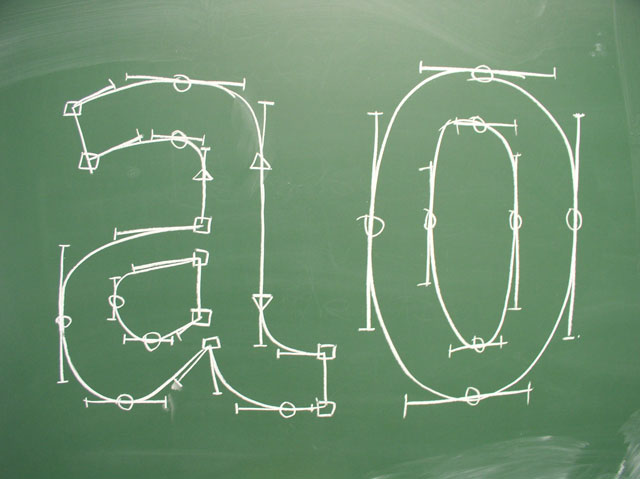
thin group and
tiny group
The thin group started to look for a proper location, and found that this morning. A weird bizar alley, which breaths the atmosphere of Jack the Ripper. Brrr. They started experimenting today using the bricks for making the type. The whole street could be 'filled' with bricks. You can read a typographic saying, if you stand on the beginning of this alley. Brake the perspective dimensions in your brains!
After three days of workshopping, the tiny group managed to make something which already looks a lot like a font (!>?). After doing lots of different sketching (and reduce them to small sizes), a basic ground layer was found. This layer defines the spacing, how thick a stem should be, and how the contrast should be. Today all the characters have been made, based on the yesterday's conclusion. After putting all the characters into Fontographer it looks really real. Really! But, lots and lots of things still have to be modified, really.